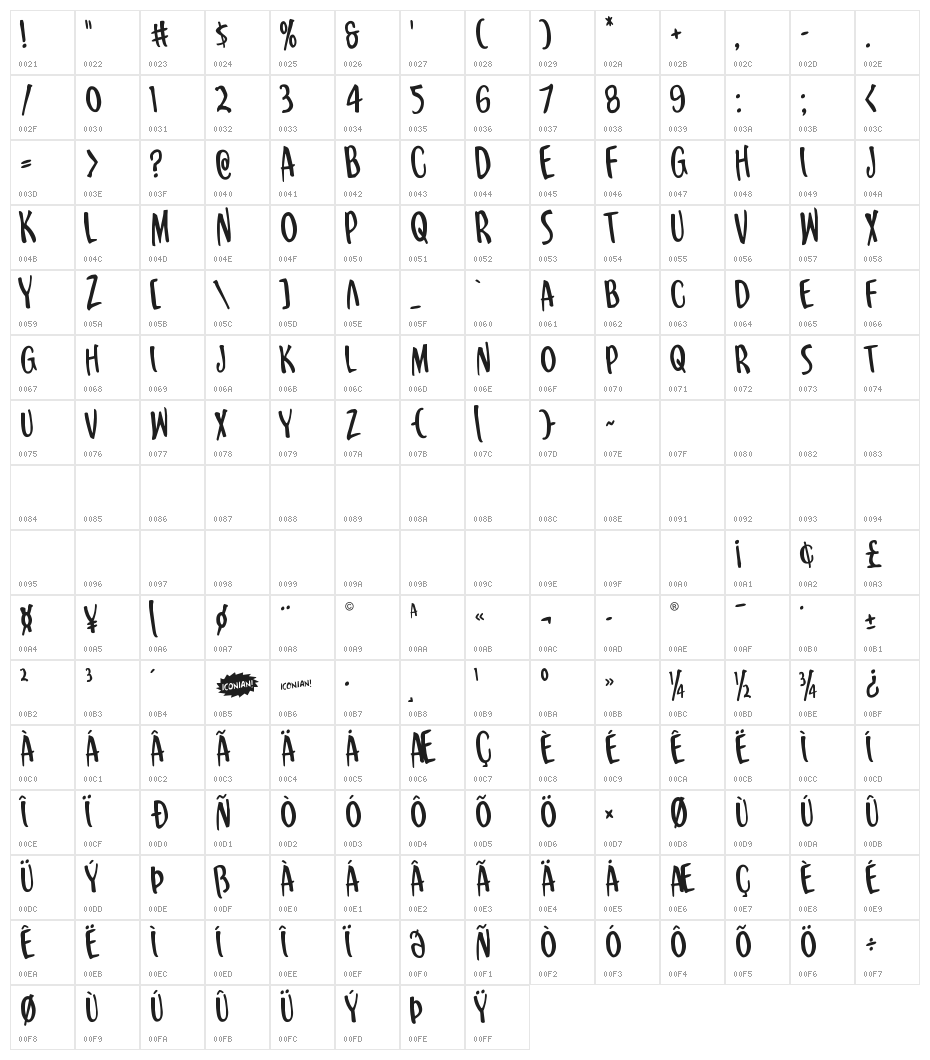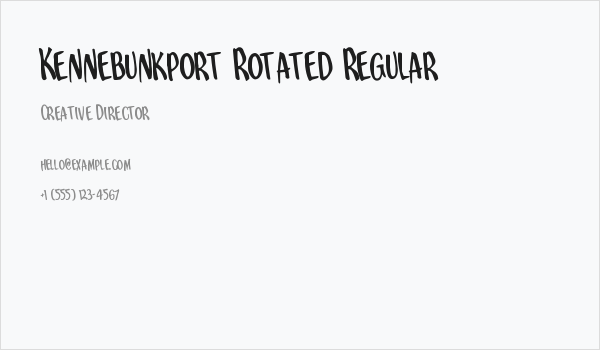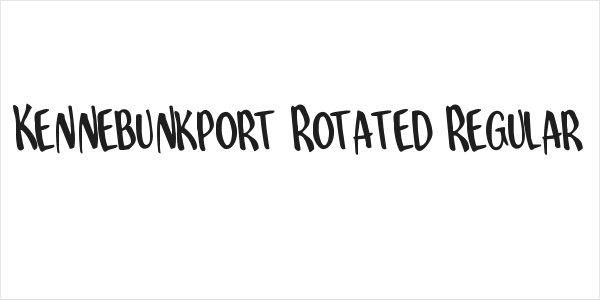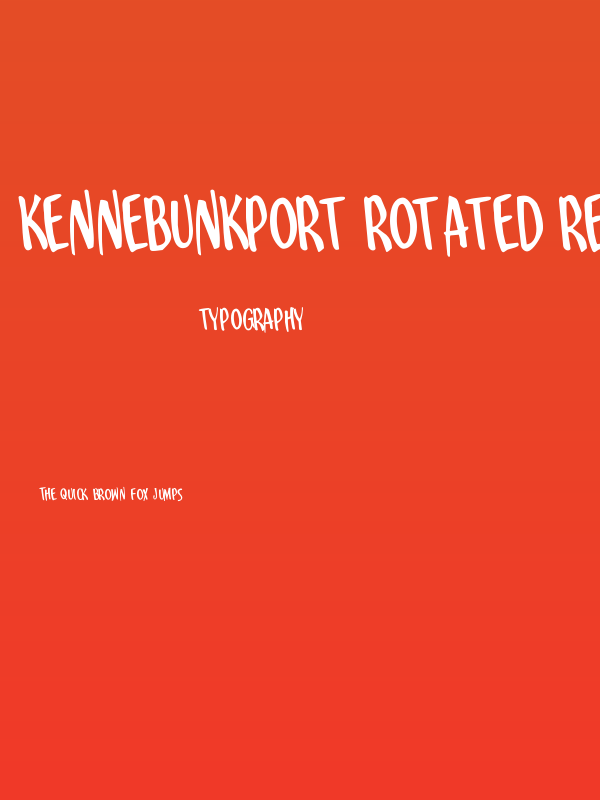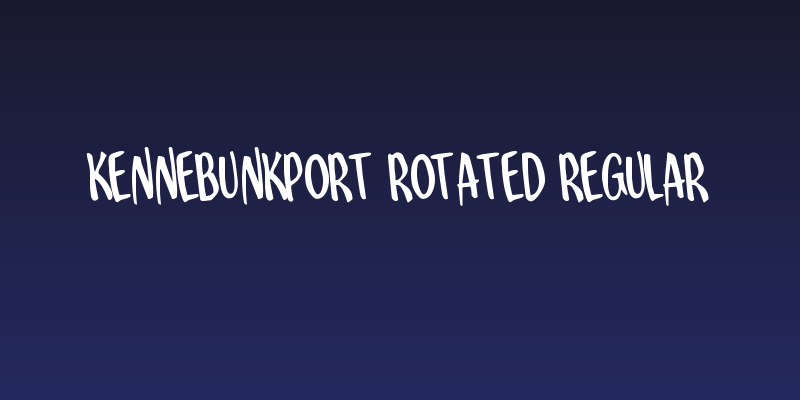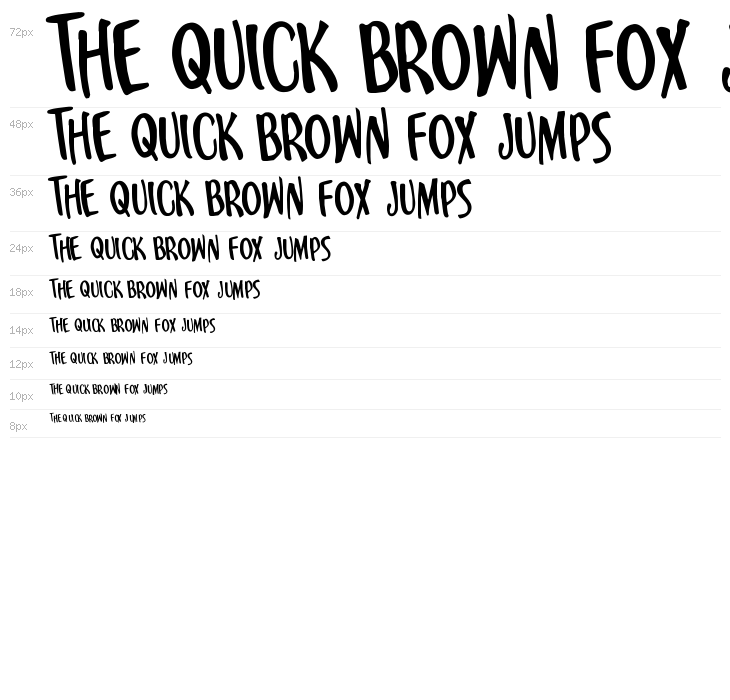
Kennebunkport Rotated Regular Font
Kennebunkport Rotated Regular Description
This font features a playful and casual handwritten style, characterized by its irregular and dynamic letterforms. The strokes are bold and slightly uneven, giving it a lively and informal appearance. The letters have a slight slant, adding to the energetic feel of the font. The uppercase and lowercase letters maintain a consistent style, with rounded edges and a friendly demeanor. The numerals and special characters follow the same playful design, making the font versatile for various creative applications.
| Proposed Projects | Ideal for children's books, greeting cards, posters, and playful branding projects. |